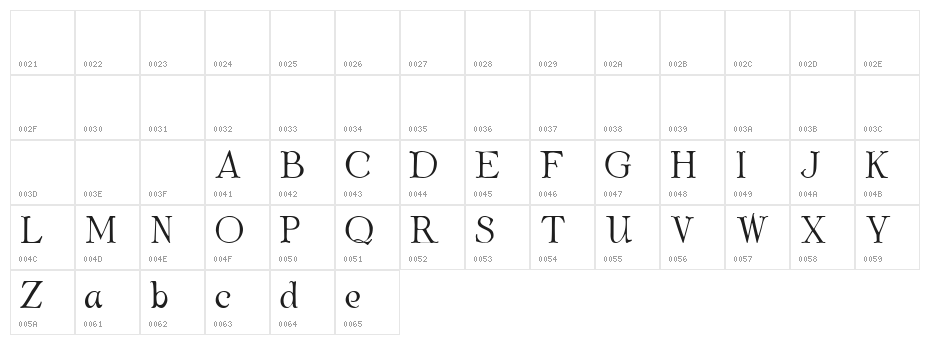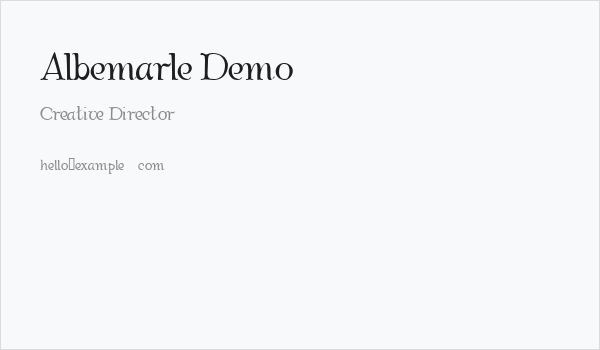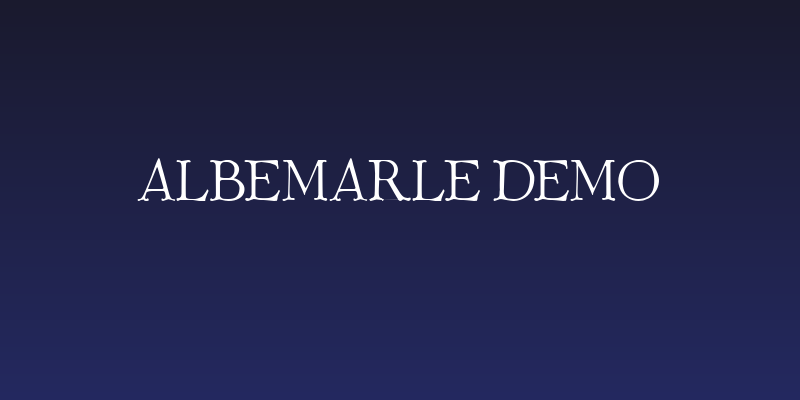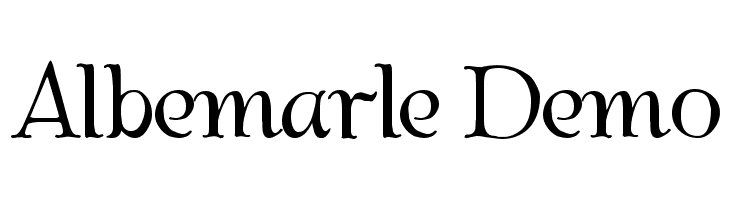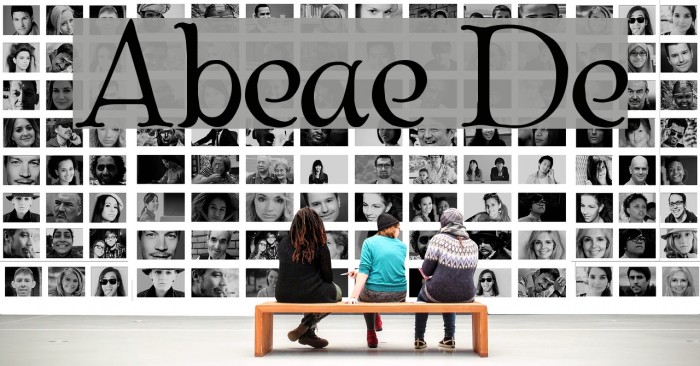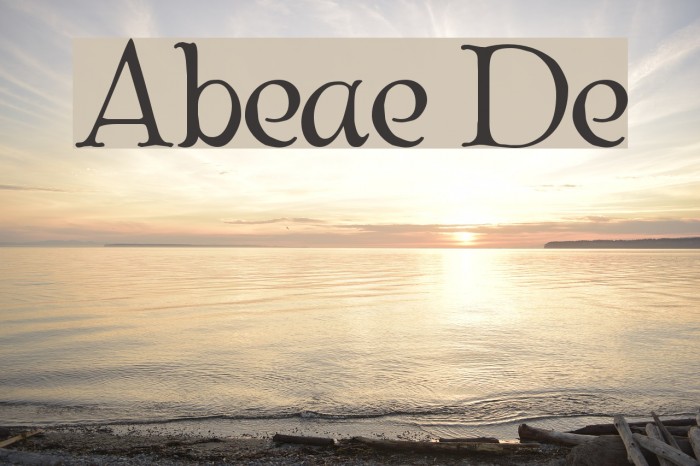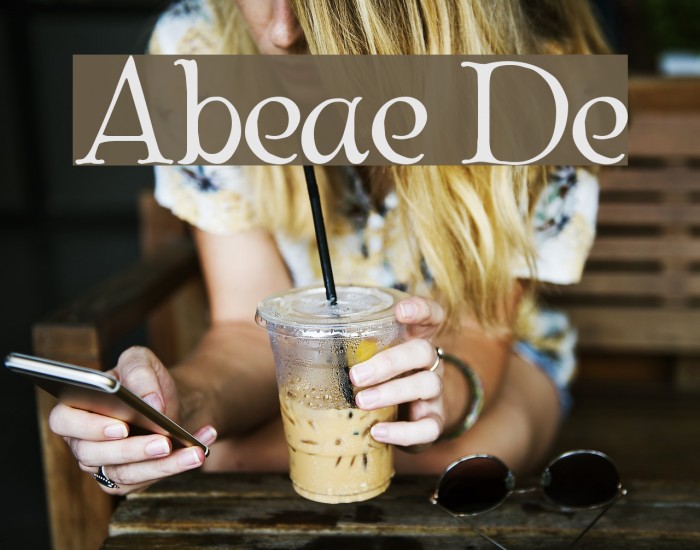
Albemarle Demo Font
Albemarle Demo Description
This font features a distinctive and elegant design, characterized by its unique blend of classic and modern elements. The uppercase letters exhibit a refined, slightly elongated form with subtle serifs that add a touch of sophistication. The lowercase letters maintain a consistent style, with smooth curves and a harmonious flow that enhances readability. The numerals are well-proportioned, complementing the overall aesthetic. Special characters are thoughtfully designed, ensuring versatility across various applications. The font's balance of traditional and contemporary elements makes it suitable for a wide range of design projects.
| Overall Style | Classic |
| Use Case | Headlines, Body text, Logos |
| Proposed Projects | Ideal for branding, editorial design, invitations, and elegant packaging. |